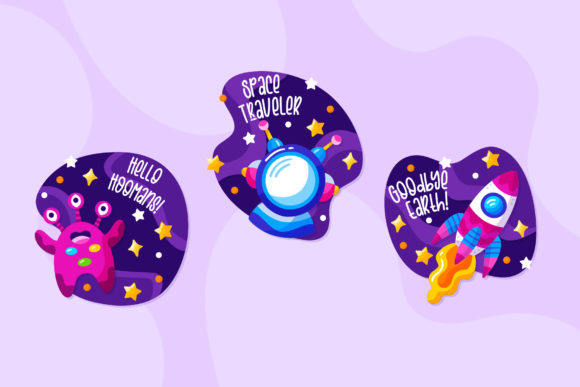
Southern Spaceship Font: The Ultimate Guide to this Friendly Display Font
Are you looking for a font that exudes warmth and friendliness? Look no further than the Southern Spaceship Font! This casual, easy-to-read display font is perfect for a variety of design projects, from branding and advertising to packaging and more. In this article, we’ll dive into the world of Southern Spaceship Font, exploring its features, benefits, and uses.
What is Southern Spaceship Font?
Southern Spaceship Font is a display font designed to convey a sense of impeccable friendliness. Its casual, easy-to-read design makes it perfect for use in a variety of applications, from headlines and titles to branding and advertising. This font is sure to grab attention and leave a lasting impression on your audience.
Key Features of Southern Spaceship Font
- PUA Encoded: Southern Spaceship Font is PUA (Private Use Area) encoded, which means that you can access all of the glyphs and swashes with ease. This makes it simple to customize your text and add unique touches to your designs.
- Casual and Easy-to-Read: The font’s casual design makes it perfect for use in a variety of applications, from informal branding and advertising to packaging and more.
- Impeccable Friendliness: Southern Spaceship Font is designed to convey a sense of warmth and friendliness, making it perfect for brands and businesses looking to establish a welcoming and approachable tone.
Benefits of Using Southern Spaceship Font
So why choose Southern Spaceship Font for your design projects? Here are just a few benefits of using this friendly display font:
- Instant Recognition: The unique design of Southern Spaceship Font makes it instantly recognizable, helping your brand or business stand out from the crowd.
- Emotional Connection: The font’s friendly and approachable design helps to create an emotional connection with your audience, making it perfect for brands and businesses looking to establish a strong bond with their customers.
- Versatility: Southern Spaceship Font is versatile and can be used in a variety of applications, from headlines and titles to branding and advertising.
Uses of Southern Spaceship Font
Southern Spaceship Font is a versatile display font that can be used in a variety of applications, including:
- Branding and Advertising: Use Southern Spaceship Font to create eye-catching headlines and titles that grab attention and leave a lasting impression on your audience.
- Packaging: Add a touch of friendliness and approachability to your packaging with Southern Spaceship Font.
- Signage: Use Southern Spaceship Font to create eye-catching signs and displays that showcase your brand or business.
Tips for Using Southern Spaceship Font
Here are a few tips for getting the most out of Southern Spaceship Font:
- Use it Sparingly: While Southern Spaceship Font is perfect for headlines and titles, it’s best to use it sparingly to avoid overwhelming your audience.
- Pair it with Other Fonts: Experiment with pairing Southern Spaceship Font with other fonts to create a unique and visually appealing design.
- Experiment with Colors: Try out different colors and color combinations to find the perfect look for your brand or business.
Southern Spaceship Font is a friendly and approachable display font that’s perfect for a variety of design projects. With its casual, easy-to-read design and PUA encoding, this font is sure to grab attention and leave a lasting impression on your audience. Whether you’re looking to establish a strong brand identity or simply want to add a touch of friendliness to your designs, Southern Spaceship Font is the perfect choice.
- Is Southern Spaceship Font easy to read? Yes, Southern Spaceship Font is designed to be easy to read, making it perfect for use in headlines and titles.